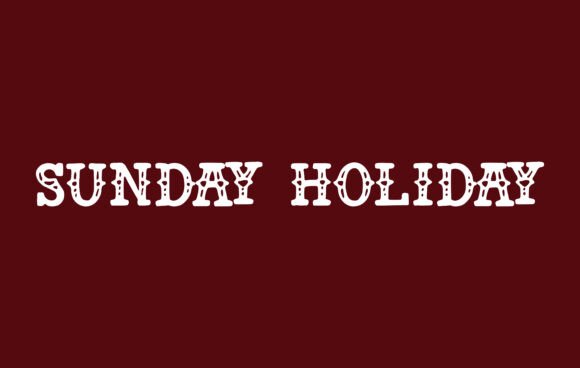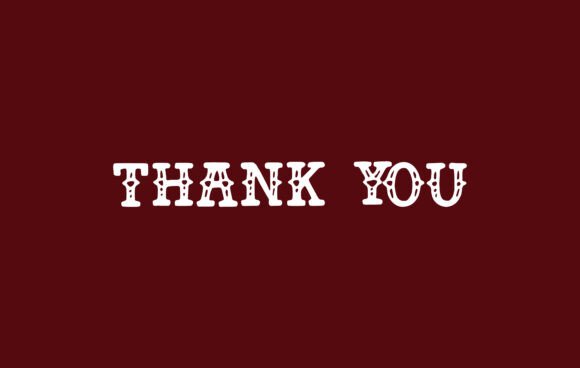
Introduction to Little Crafters Font
Remember the excitement of discovering a new design resource that elevates your creative project to the next level? For designers, there’s no greater thrill than stumbling upon a font that perfectly captures the essence of their vision. That’s exactly what happens when you come across the Little Crafters Font – an authentic slab serif font with a romantic touch that’s sure to leave a lasting impression.
Whether you’re working on a magazine headline, social media campaign, or wedding invitation, this font has the potential to take your design to new heights. Its legibility and versatility make it an ideal choice for both title and body text, ensuring your message is conveyed with clarity and style.
Key Features of Little Crafters Font
- Unique and playful design, ideal for creative projects and craft-related themes
- High-resolution design, suitable for print and digital projects, with a resolution of 300 DPI or higher
- Transparent background, allowing for easy customization and layering in design compositions
- Designed with a small, delicate size, making it perfect for use in titles, headings, and other small text elements
- Perfect for use in scrapbooking, card making, and other paper crafting projects, or as a design element in digital products
Honest Review: Little Crafters Font
I recently came across the Little Crafters Font, a free design resource that’s perfect for creative projects. One of the standout features of this font is its high quality and versatility, making it suitable for a wide range of applications.
What works well with the Little Crafters Font is its playful and whimsical feel, which makes it ideal for crafting-related designs, such as invitations, party decorations, and scrapbooking layouts. ✨ The font is also highly customizable, allowing users to adjust the size, color, and opacity to suit their specific needs.
- Transparency: The Little Crafters Font features a transparent background, making it easy to layer and combine with other design elements.
- Customization: Users can adjust the font’s size, color, and opacity to suit their creative project.
However, there are a few limitations to consider. ⚠️ The font may not be suitable for professional or formal designs, as its playful feel may come across as unprofessional. Additionally, the font’s free download status means that users may not have access to additional features or support.
Overall, I would recommend the Little Crafters Font for creative projects that require a playful and whimsical feel. While it may not be suitable for all design applications, its high quality and customization options make it a valuable resource for designers and crafters alike.
Tips for Getting the Most Out of Little Crafters Font
Experiment with different font sizes, colors, and styles to create a visually appealing design. Use the Little Crafters Font in combination with other design elements to add depth and texture to your design.
The Little Crafters Font is ideal for designing invitations, party decorations, and other creative projects that require a unique and playful touch. Use it to add a personal touch to your designs and make them stand out from the crowd.